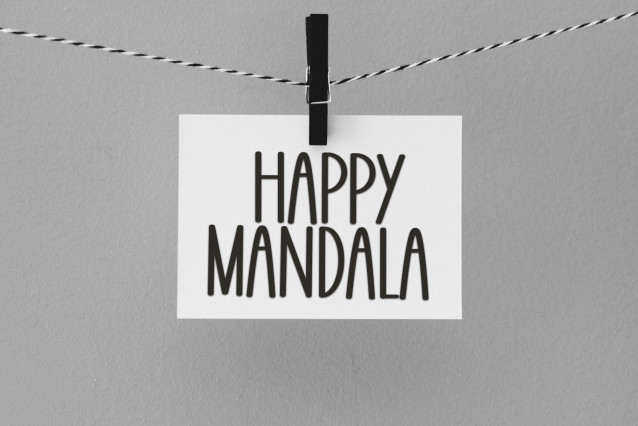
Active Display Font
Active Display Font is a sweet and friendly handwritten font. Its natural and unique style makes it incredibly fitting to a large pool of designs. The only limit is your imagination!
inermediaSTUDIO